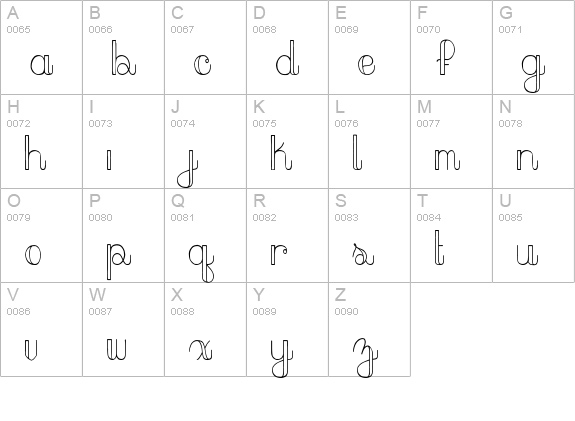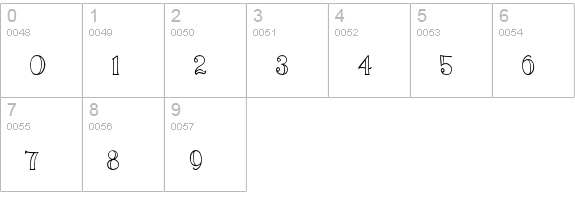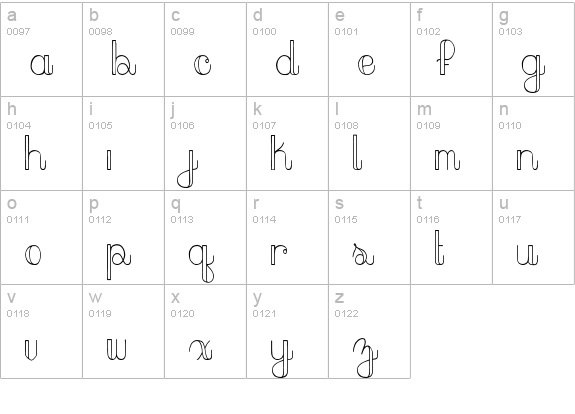
peach sundress ~ Font Details
Introducing the Peach Sundress font, a delightful and charming typeface that exudes a sense of sweetness and femininity. This whimsical font is perfect for adding a touch of elegance to your designs, whether you're working on invitations, branding, or any creative project that calls for a soft and romantic aesthetic. The Peach Sundress font features graceful curves and playful swashes that evoke the feeling of a warm summer day. Its soft peach hue adds a touch of warmth and vibrancy, making it the perfect choice for projects that require a cheerful and inviting vibe. This lovely font is freely available to download at FontsMarket.com, where you can easily access it to elevate your designs with its unique charm and personality. Embrace the beauty of the Peach Sundress font and bring a touch of sweetness to your next creative endeavor.